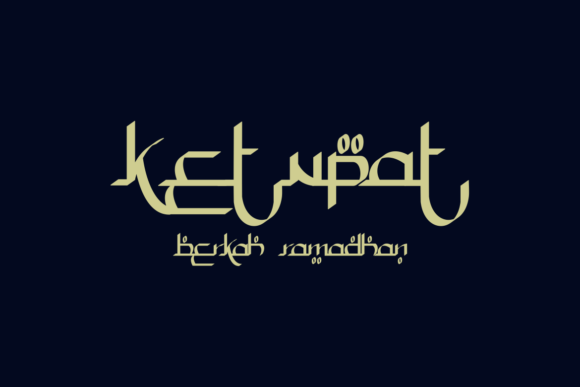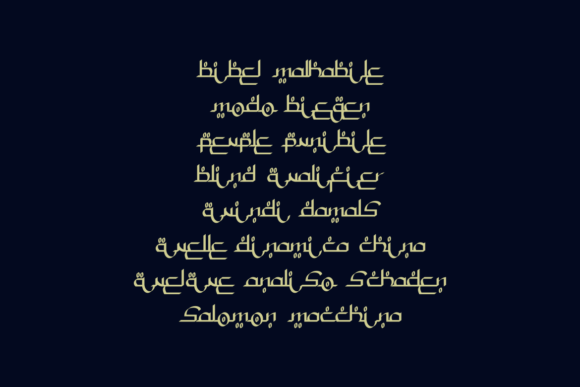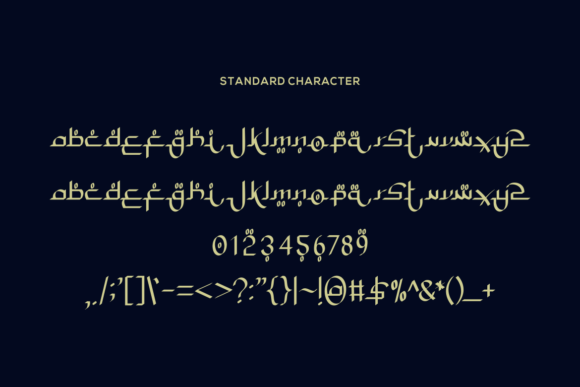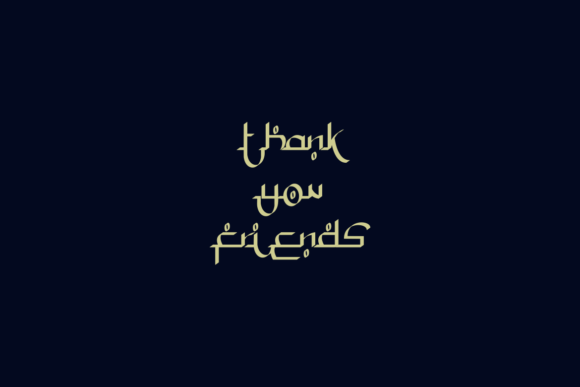
Introduction to Malham Takbir Font Font
Fonts play a crucial role in design, and the Malham Takbir Font font is a typeface that brings both character and versatility to any project. Whether you’re working on a branding project, a website, or a print design, the Malham Takbir Font font offers a unique style that can elevate your work.
Introducing Malham Takbir: a cool, Arabic-style display font that combines traditional elegance with contemporary flair.
Its intricate, flowing letterforms evoke a sense of cultural richness, making it perfect for unique branding, striking posters, and artistic projects Elevate your designs with the sophisticated beauty of Malham Takbir.
Key Features of Malham Takbir Font Font
Why Choose Malham Takbir Font Font?
The Malham Takbir Font font is more than just a typeface – it’s a design tool that helps you communicate your message with style and clarity. Its unique character set and versatile design make it suitable for a wide range of applications, from elegant invitations to bold headlines.
With its carefully crafted letterforms and balanced proportions, the Malham Takbir Font font ensures readability and visual appeal across all mediums.
What makes Malham Takbir Font font special?
The Malham Takbir Font font stands out with its unique design, exceptional readability, and versatility across various design applications.